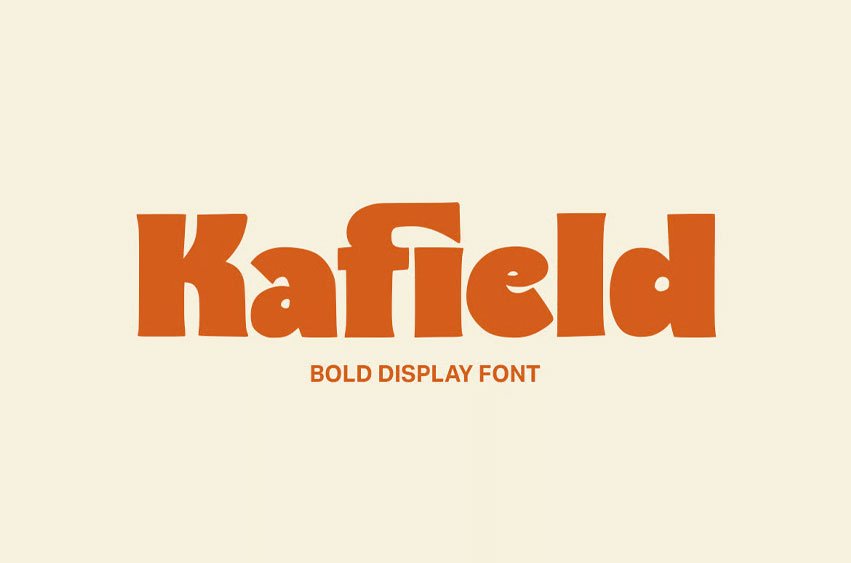
Kafield Font Ignite a sense of retro fun and undeniable confidence with Kafield, a captivating, bold display font that brings the playful energy of the 1970s straight into modern design.
This typeface is defined by its thick, rounded forms and pleasantly irregular curves, delivering a striking visual presence that is both welcoming and commanding. Kafield is more than a font; it’s an instant dose of positive, throwback personality.
• Unique Hand-Drawn Style